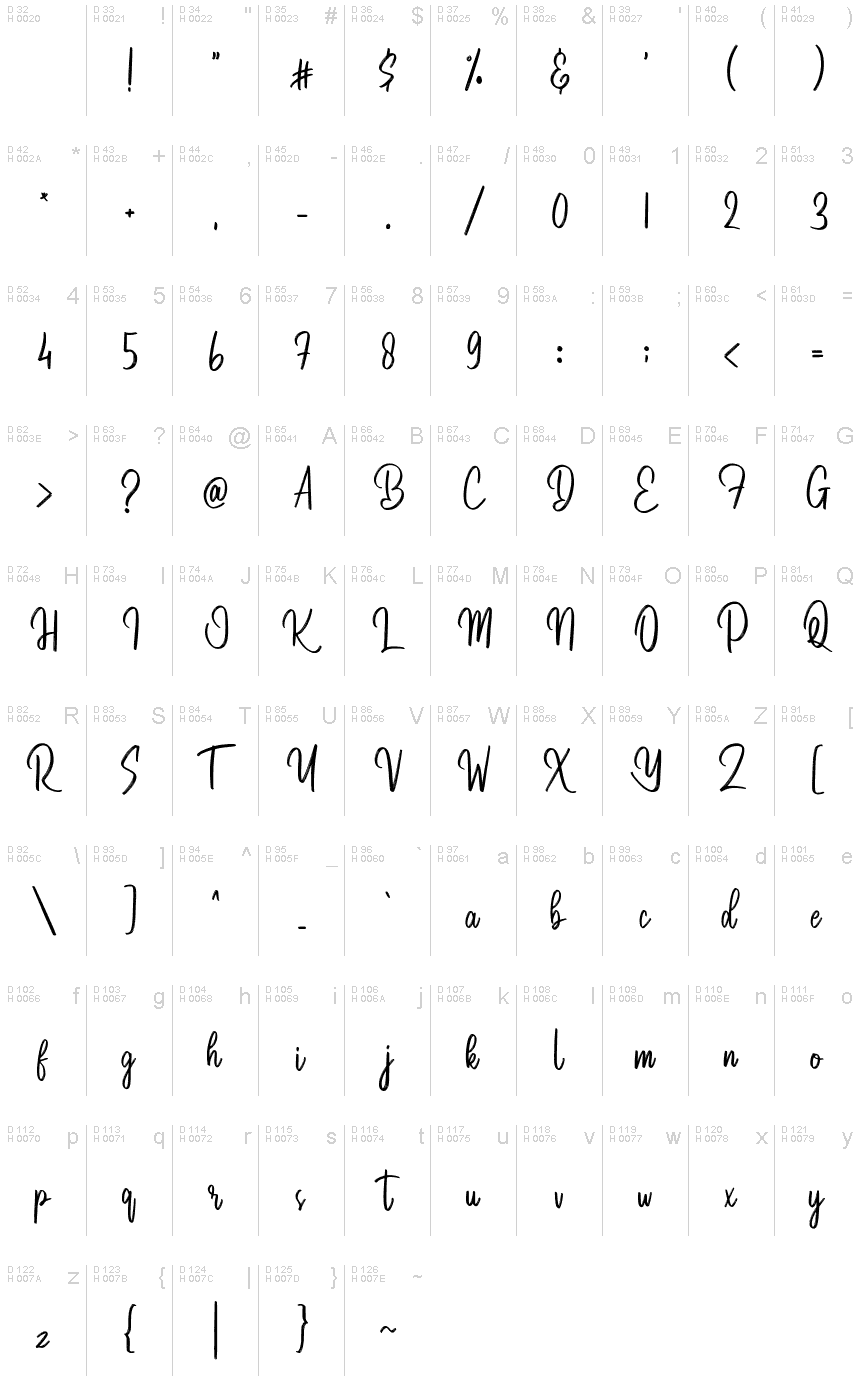
The Gaston Swisea
The Gaston Swisea, a narrow brush script font designed by zeenesia, is perfect for creating fun and unique designs. It's ideal for any project requiring an elegant and creative touch, such as posters, invitations or stationery.